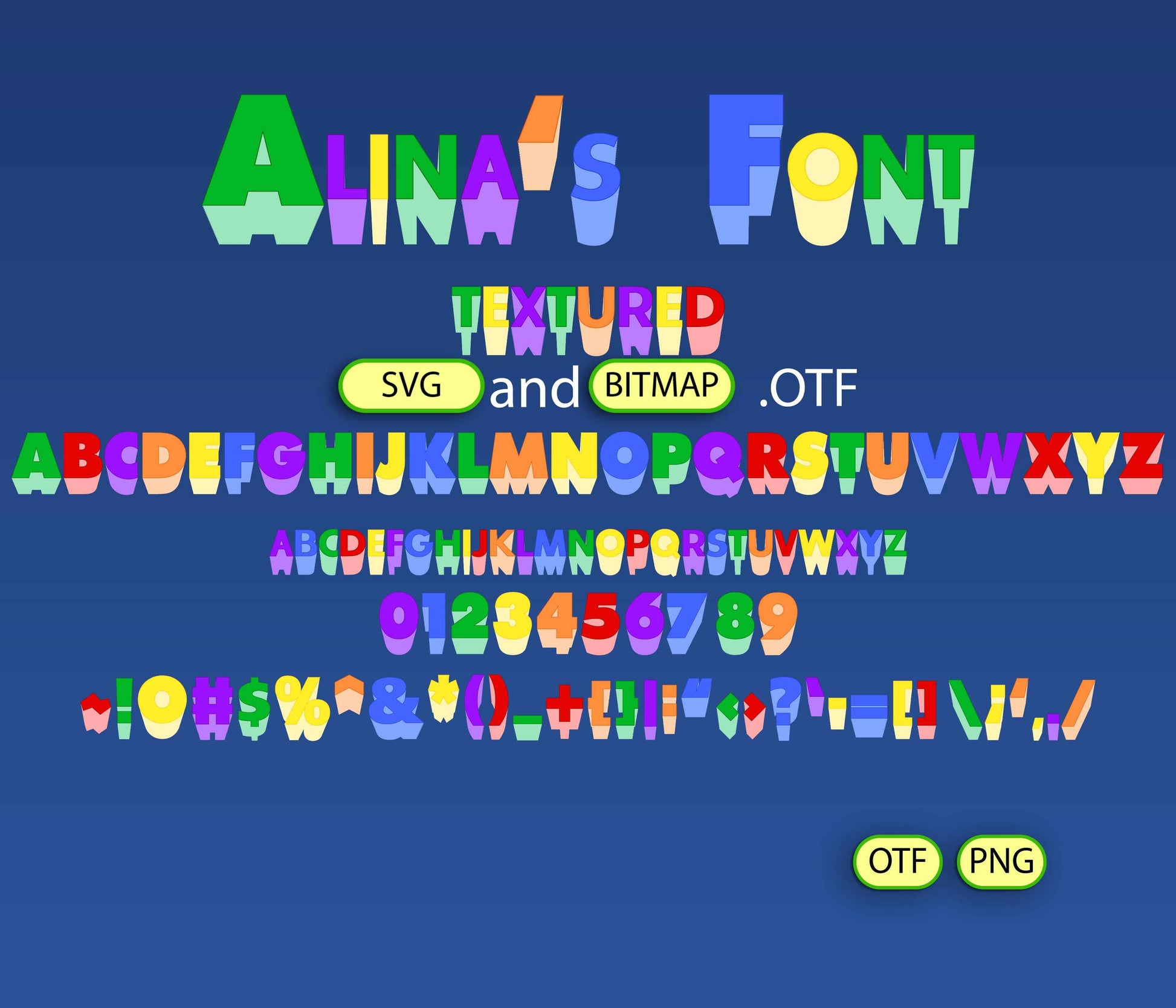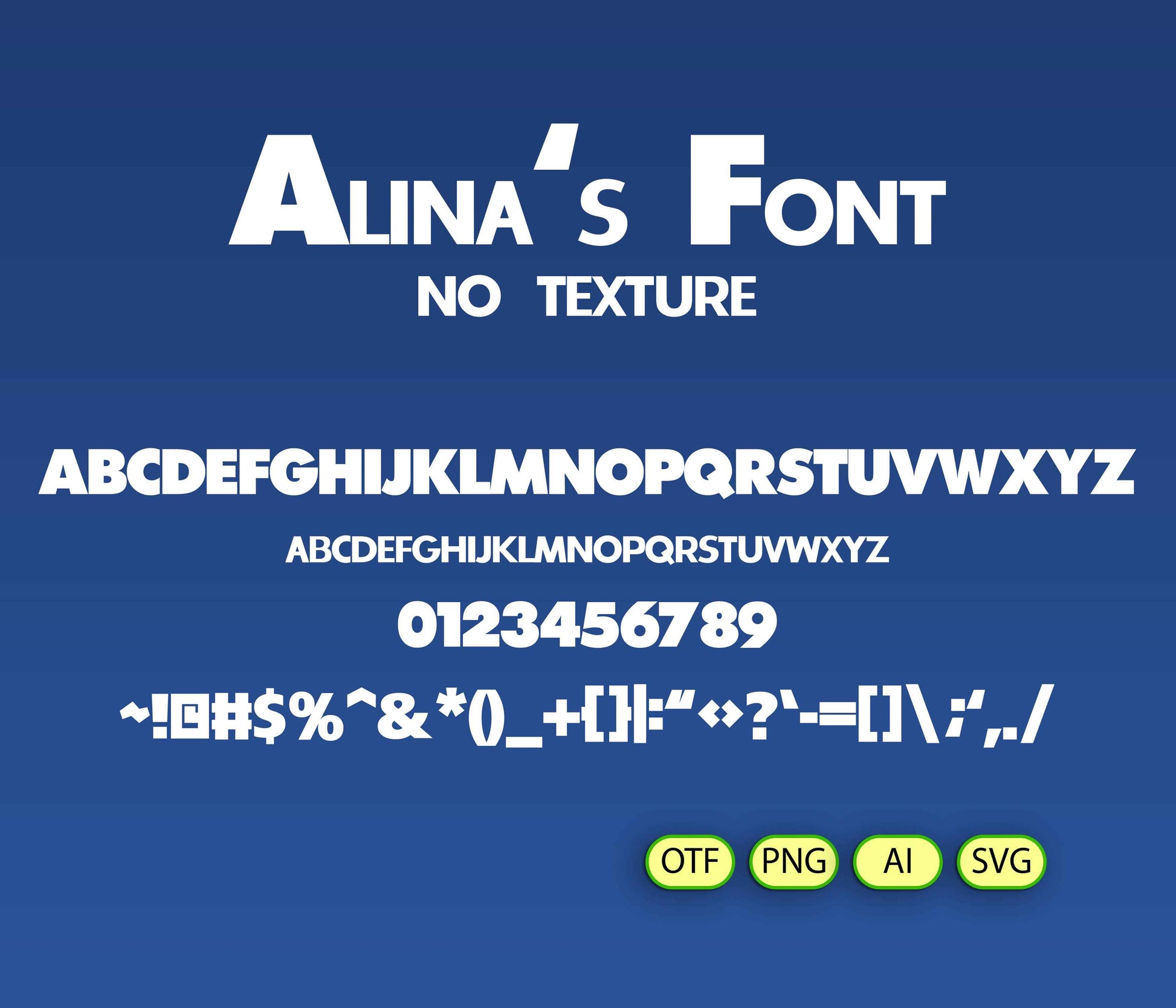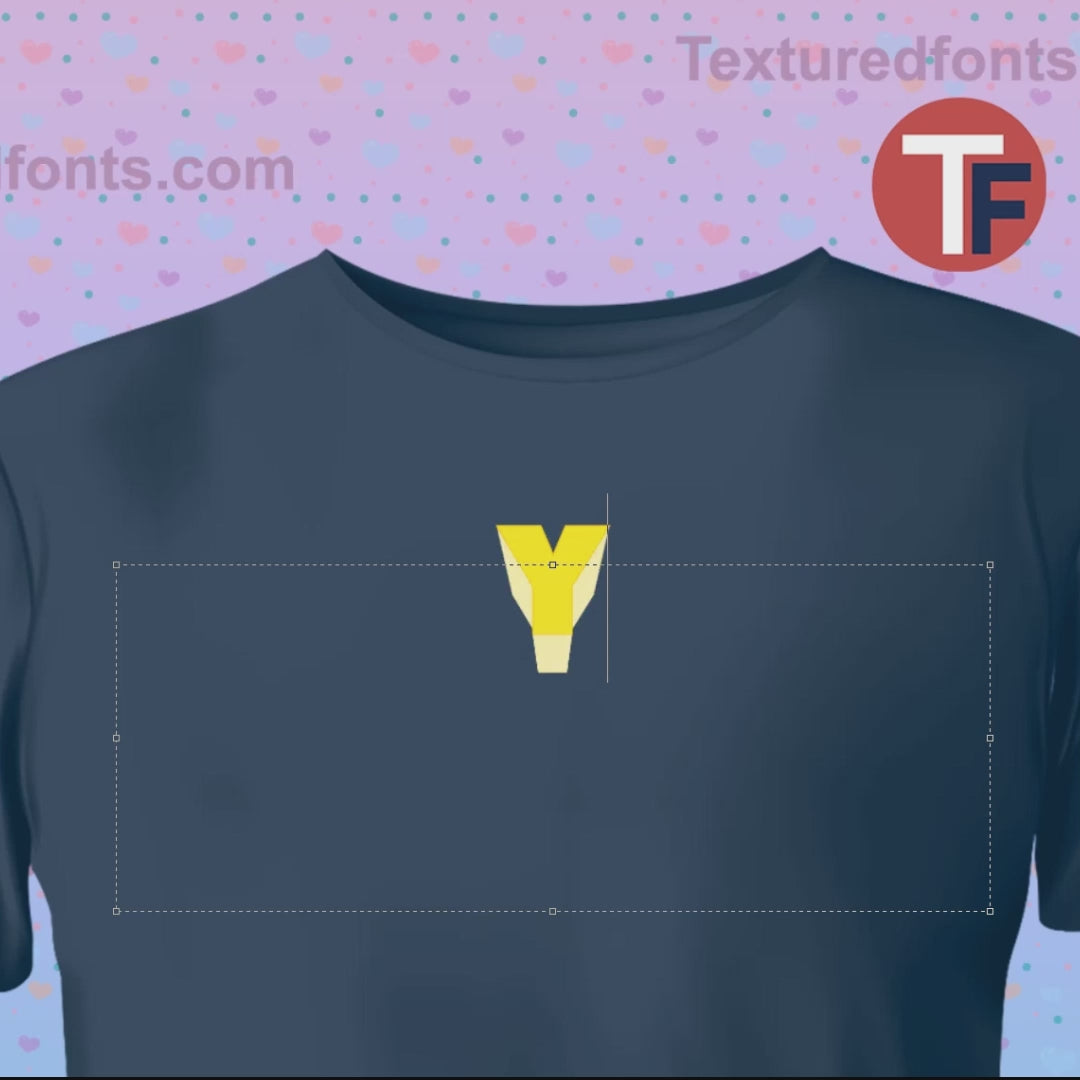
ColorCub Font Textured
Explore Creativity with the ColorCub Font
Dive into a world of vibrant creativity with our ColorCub font, designed to capture the playful and modular aesthetic of colorful building blocks. Perfect for designers, educators, and marketers looking to add a dynamic and engaging visual element to their projects, this font ensures your creations stand out with the boldness and simplicity that characterizes block-based designs.
Reflecting the clean lines and vivid colors of color blocks, this font features a geometric, blocky style that’s both appealing and functional. It’s particularly well-suited for a wide array of applications:
1. Educational Materials: Enhance learning tools, classroom posters, or educational apps to encourage interaction and fun.
2. Marketing and Branding: Create eye-catching promotional content, logos, or packaging that needs to grab attention quickly.
3. Digital Content: Use in web design, digital banners, or social media graphics where bold visuals are key.
4. Event Signage: Design vibrant signs and decorations for children’s events, workshops, or creative expos.
5. Personal Projects: Add a playful touch to DIY crafts, home decor, or personal stationery.
To ensure that everyone can use this font effectively, our ColorCub font includes both textured and non-textured variants. The non-textured version is particularly useful, ensuring compatibility with all types of software, including Canva. This versatility makes the font incredibly accessible and easy to use for all your creative needs, whether you are working on professional graphic design projects or simple personal creations.
ColorCub Font Generator
Many people seek out a ColorCub font generator online to mimic the look of the ColorCub font. Steer clear! No font generator can match the quality of this ColorCub font, which comes in two versatile versions: a textured colored ColorCub font and a simple ColorCub font. This is particularly beneficial if you plan to use it with a cutting machine.
Our ColorCub font not only celebrates the simplicity and joy of colorful block designs but also empowers you to bring a sense of playfulness and clarity to your projects. Whether you’re engaging audiences in educational settings, boosting a marketing campaign, or personalizing your own space, this font lets you communicate with energy and imagination. Get ready to build your next project with blocks of bold color and clear, impactful design!